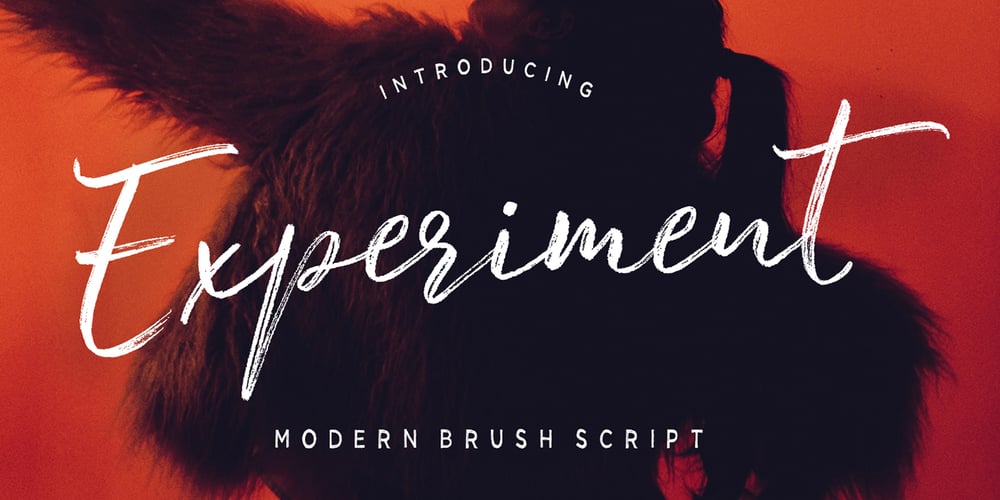
Experiment Brush Script Font Family was designed by Mauli Zari and published by Dhan Studio. Experiment Brush Script contains 2 styles and family package options. Experiment is a modern brush script font perfectly textured and based on the expression of the signature style that flows freely, friendly and organic. It’s hand painted with love. Experiment Brush Script contains ligatures and alternates characters in Open Type Features. Perfect for brand projects, logos, product packaging, posters, invitations, greeting cards, news, blogs, and more. Add personal charm to everything!